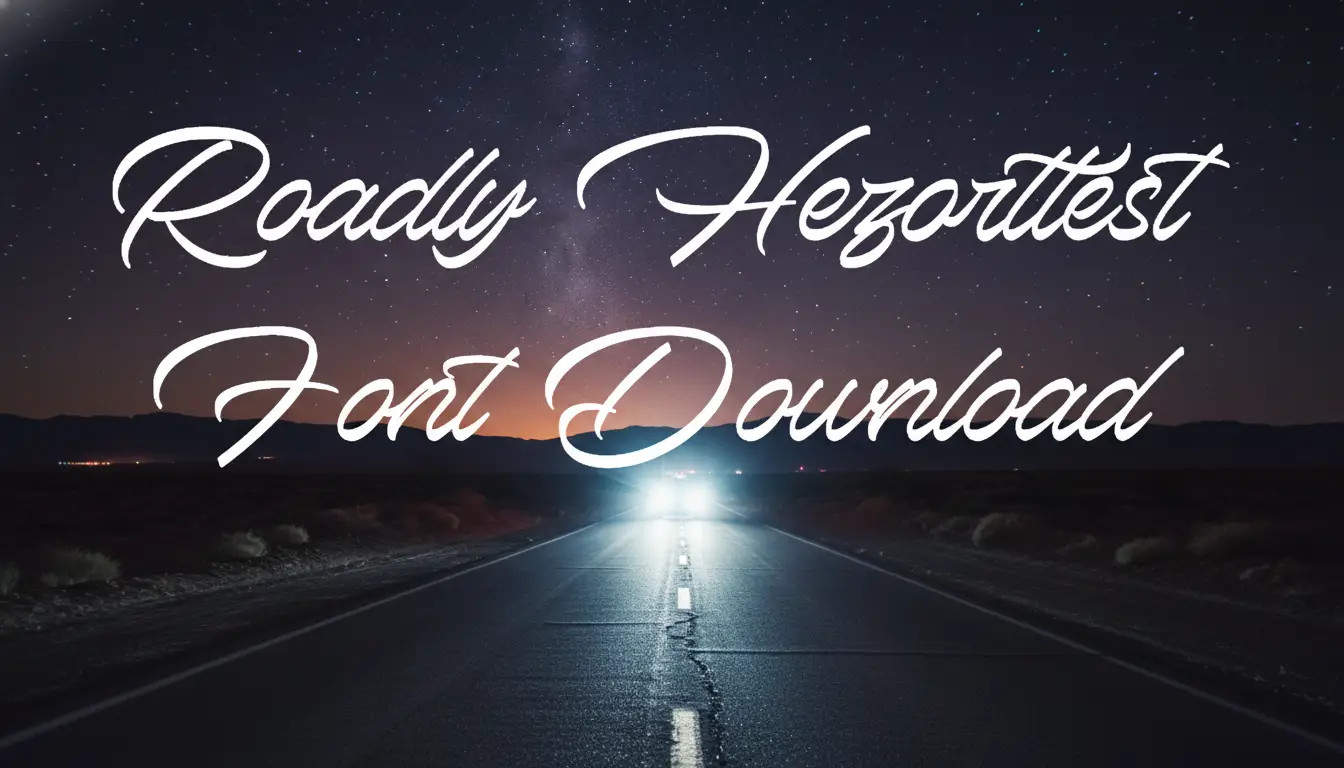
Roadly Hezarttest Font
Roadly Hezarttest is a script font designed by Heru Utama Putra and published by Storytype Studio. It has that hand-lettered, flowing feel people look for when regular type seems too stiff. You can download it for free and test it with your own words in the preview above.
What You Can Type With Roadly Hezarttest
With complete upper and lowercase letters and all ten digits, Roadly Hezarttest is ready for real wording, not just a single headline. Everyday marks like &, !, ? and @ are there too. Thanks to its accented letters, it also works for Spanish, French, German, Portuguese and Italian, not just English.
Where Roadly Hezarttest Works Best
Designers usually reach for fonts like Roadly Hezarttest when they're making wedding invitations, logos and signature-style headings. Script fonts read best in short bursts, so keep it to names, titles and one-line quotes. Skip all caps: script capitals are drawn to start a word, not to fill one.
Does Roadly Hezarttest support accented letters?
Yes. Roadly Hezarttest includes the accented letters needed for Spanish, French, German, Portuguese and Italian, so it works for more than just English.